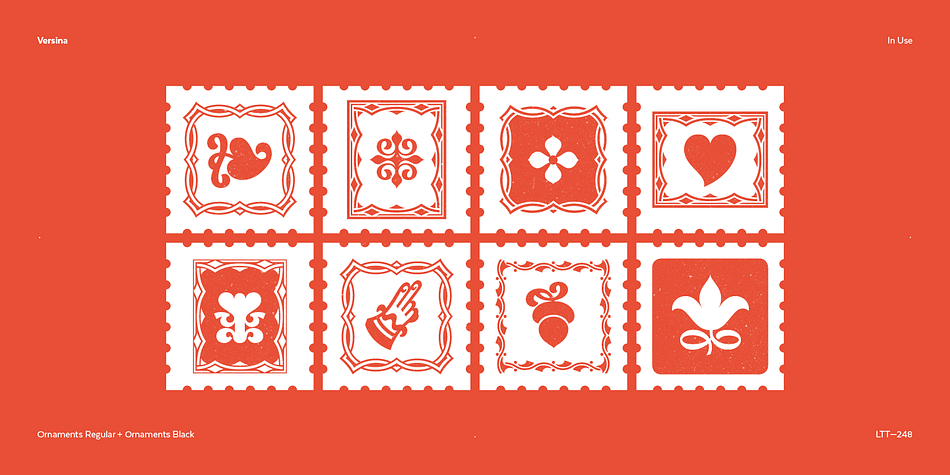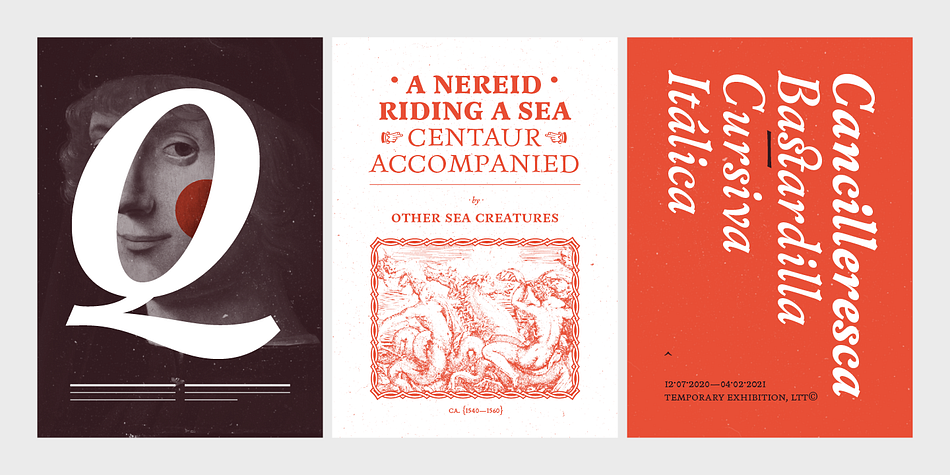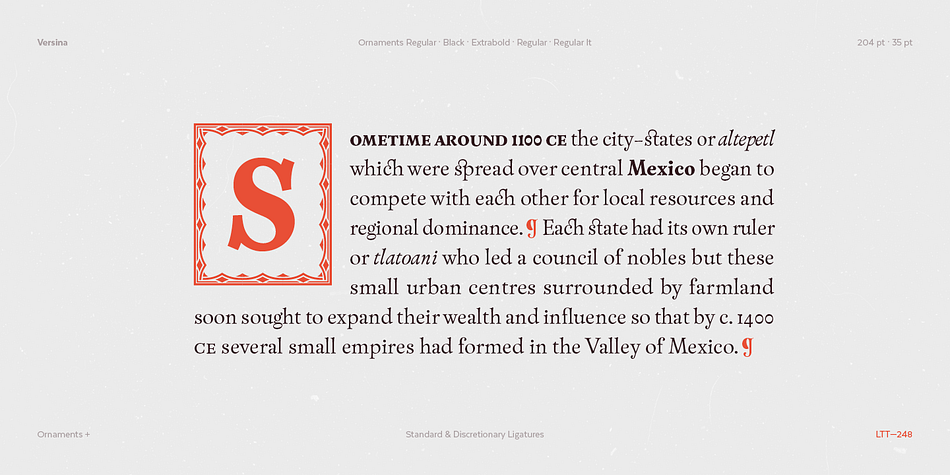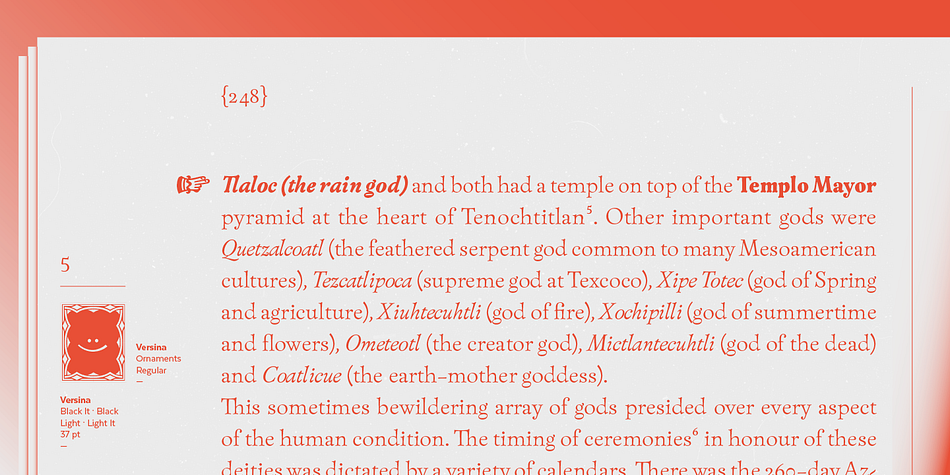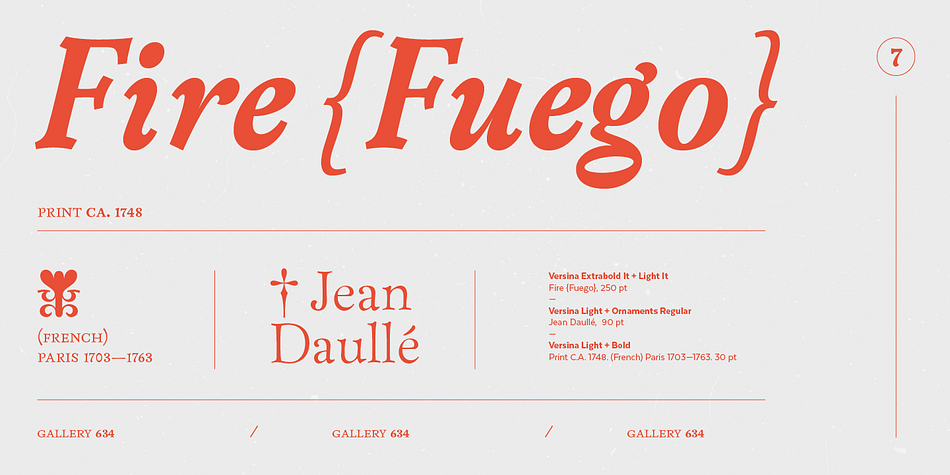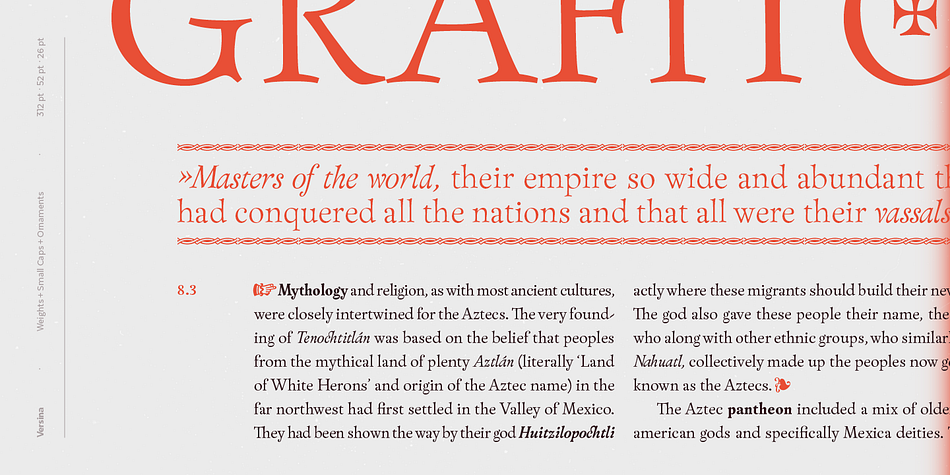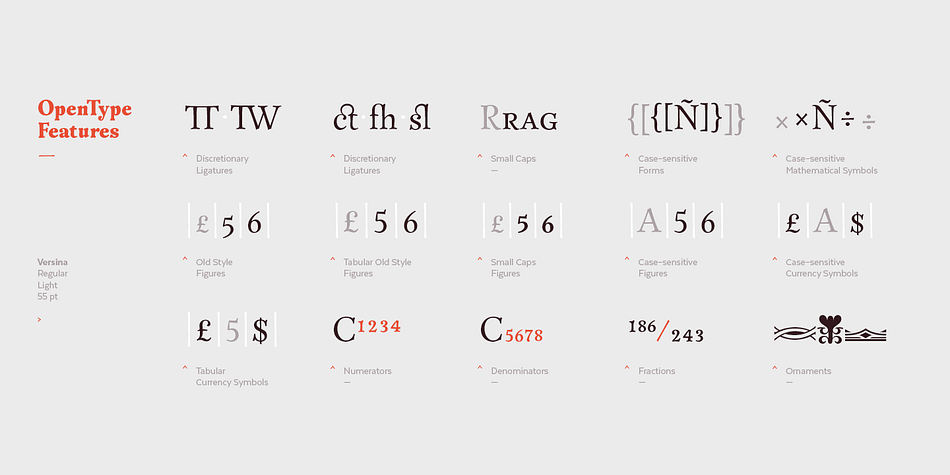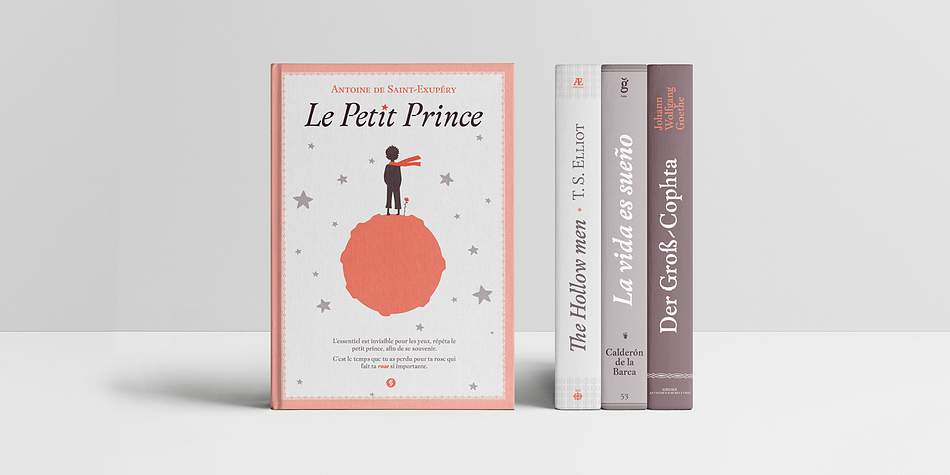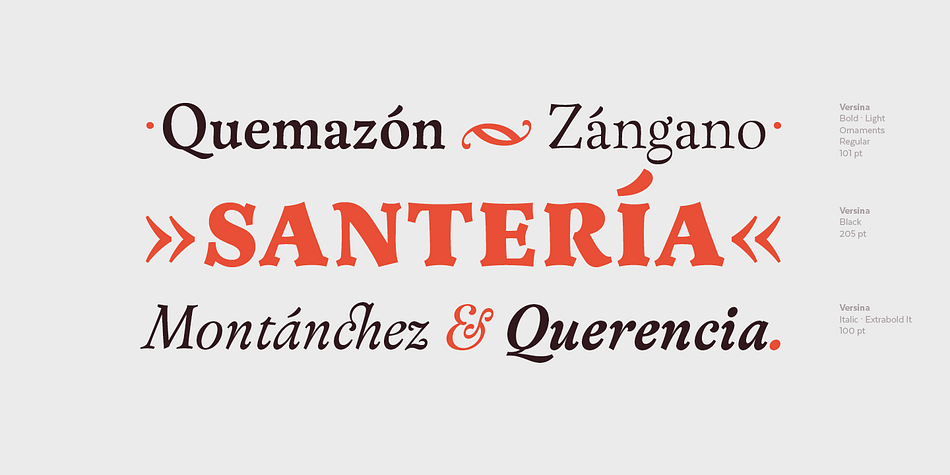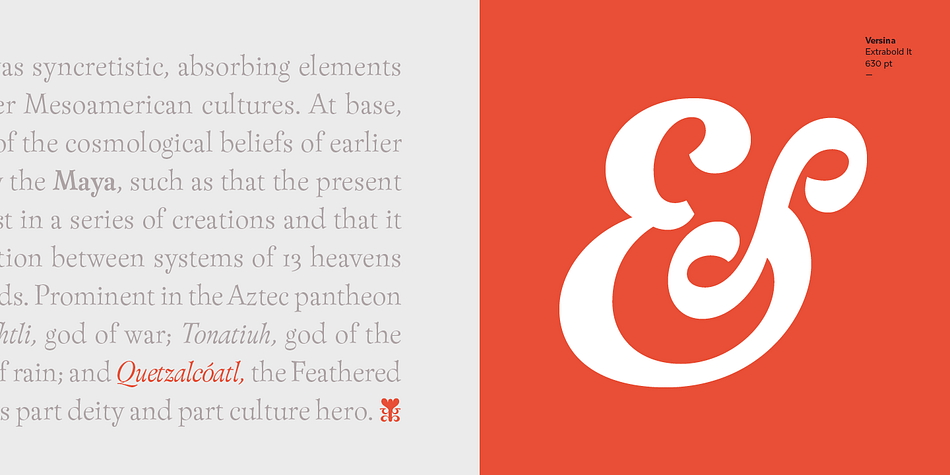
Designed by Dani Senso, Versina is a serif and dingbat font family. This typeface has twelve styles and was published by Latinotype.
Versina is a display typeface with a unique and expressive yet moderate personality resulted from its organic elegant shapes which are inspired by Spanish transitional typefaces from the 18th century. This font is perfectly suitable for both titles and short text.
Versina features a flowing organic stroke and asymmetric bracketed serifs, and its shapes convey rhythm and dynamism. The font has a large x-height and its ascenders are shorter than the cap height, making it look more slender and modern. Calligraphic and crescent-like terminals give the design great formal richness.
Versina comes in 5 weights with matching italics plus a set of ornaments, in Regular and Black styles, and also includes old style/lining/tabular figures, fractions, superscripts and subscripts as well as a set of small caps, standard ligatures, historical ligatures, symbols and frames. Versina contains a set of 694 characters that support over 200 Latin-based languages.